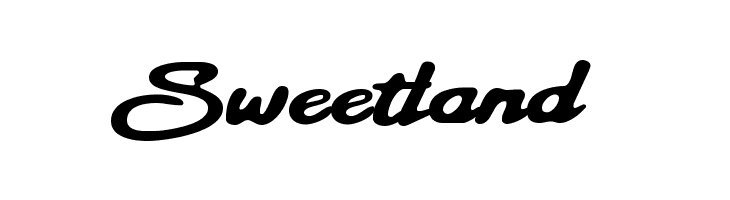
( Lettersiro Studio - Muhammad Sirojuddin - creativemarket.com/Lettersiro )
A bold, cursive font with smooth, connected lines and a handwritten feel.